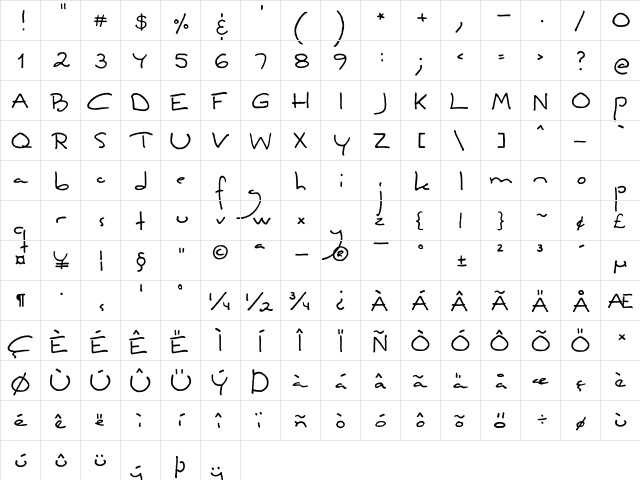
FG Ellinor Regular
Design Context for FG Ellinor Typeface
FG Ellinor is a composed and adaptable typeface that performs quietly and consistently across a wide range of design contexts.